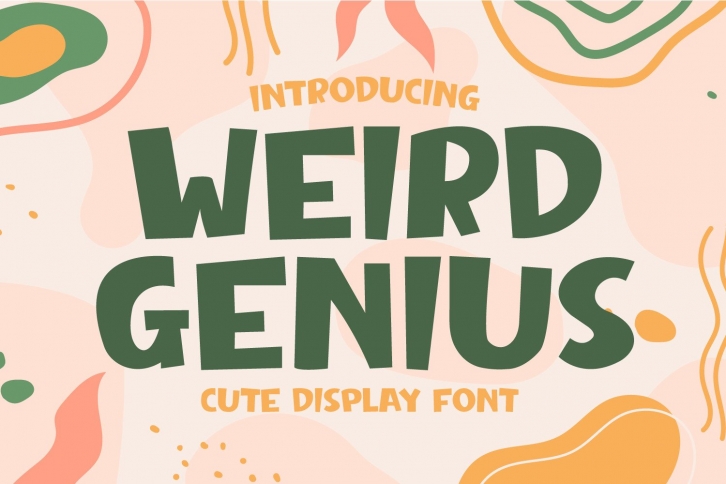
Weird Genius is a playful, fun and thick lettered display font. It embodies playfulness and authenticity and is the perfect choice for any children activity or school project.